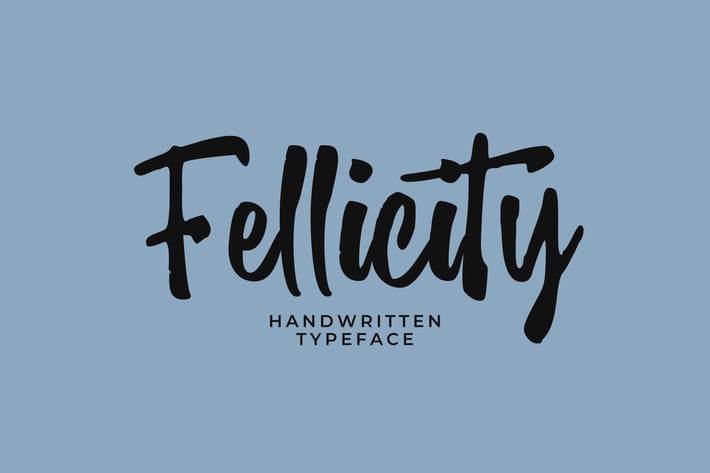
Fellicity - Handwritten Typeface
Fellicity - Handwritten Typeface is a captivating brush script font designed to infuse your projects with an air of elegance and charm.
Upper and Lowercase
Ligatures (OpenType)